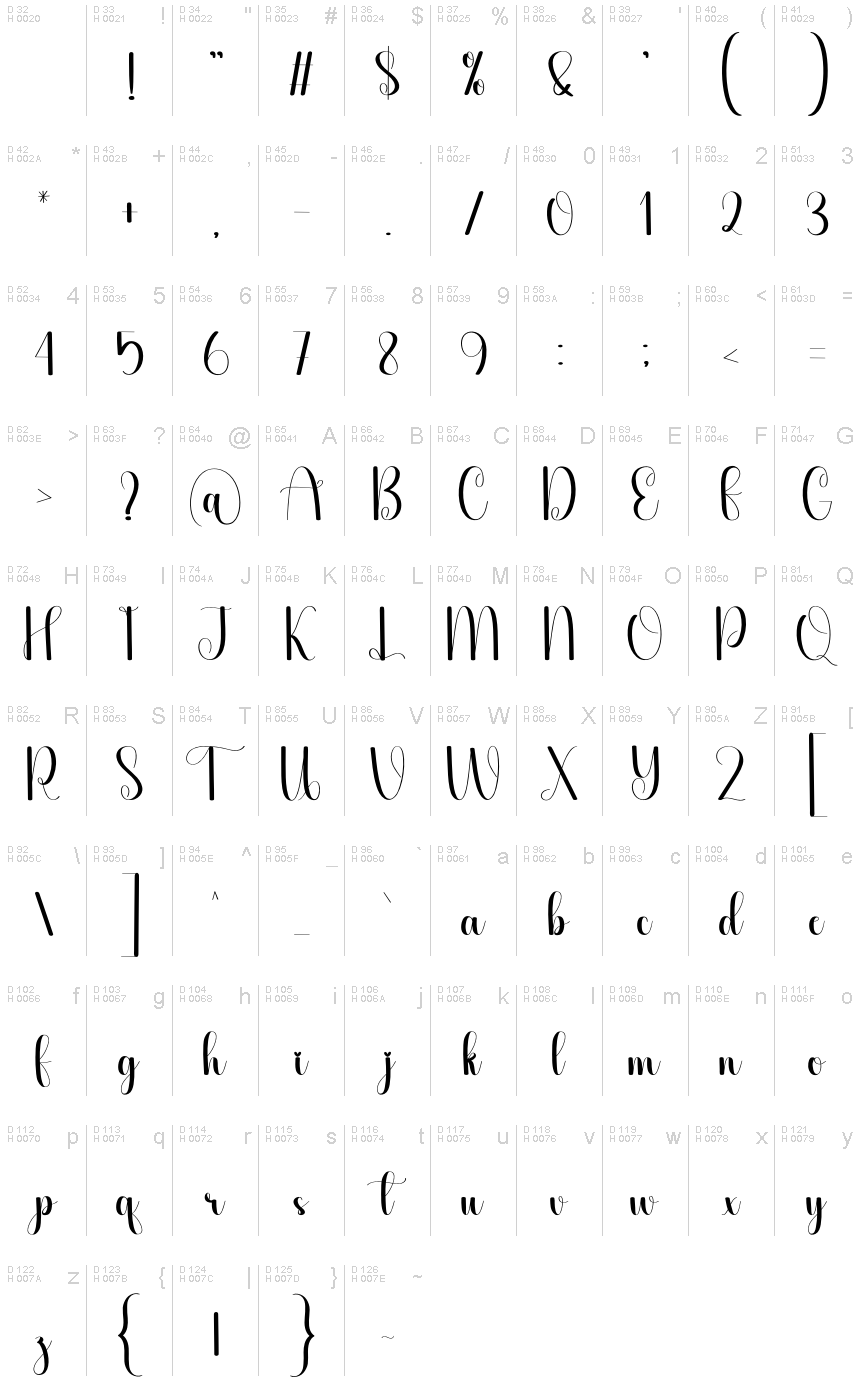
Sothick
Sothick font, designed by Scratchones, exudes an enchanting calligraphic elegance that captivates at first glance. Its bold and flowing strokes deliver a sense of sophistication, while the beautiful curves add a whimsical charm. The font’s striking fullness creates a strong presence, making it ideal for projects that seek to evoke emotion and artistry.
Sothick's unique character allows it to shine in various design contexts—be it elegant wedding invitations, eye-catching branding materials, or inspiring poster designs. Its charismatic style not only enhances visual storytelling but also invites creativity in personal or professional projects. With Sothick, the possibilities for expressing individuality through typography are beautifully limitless.